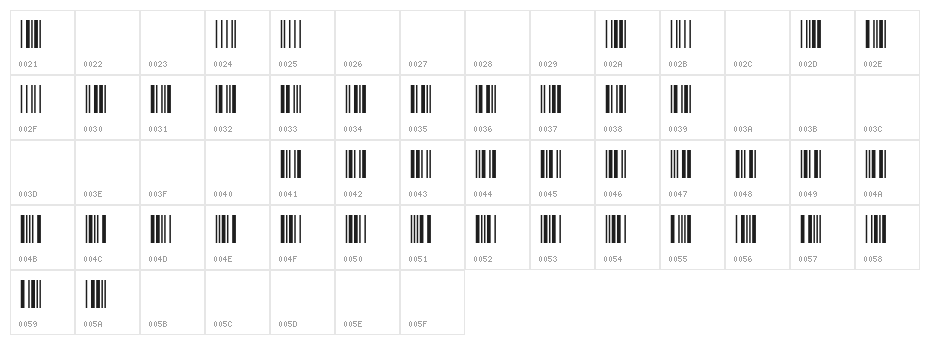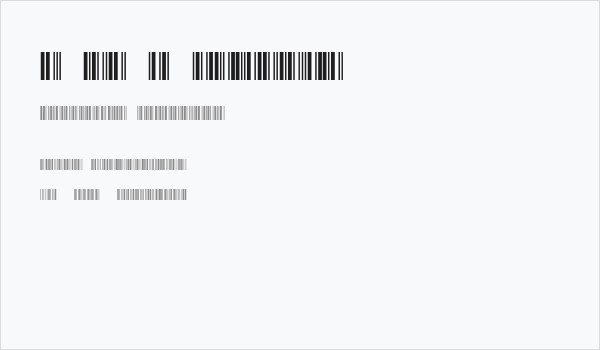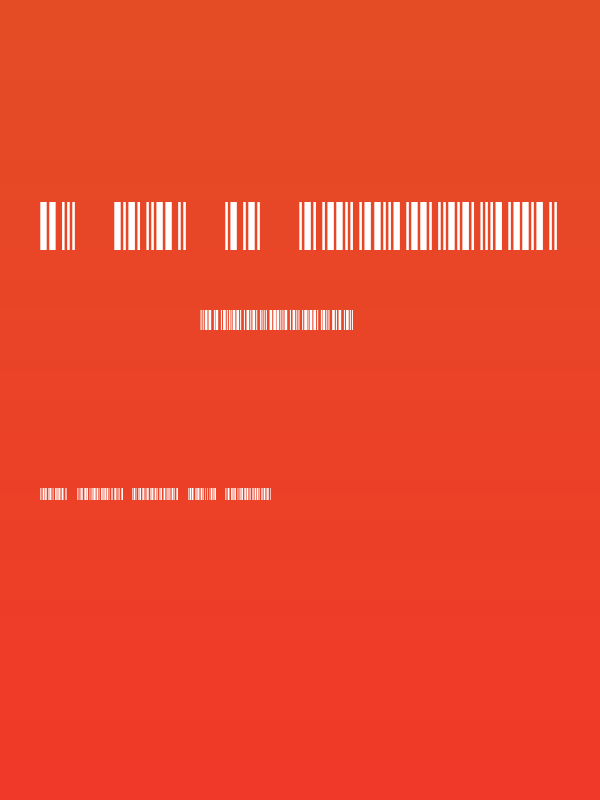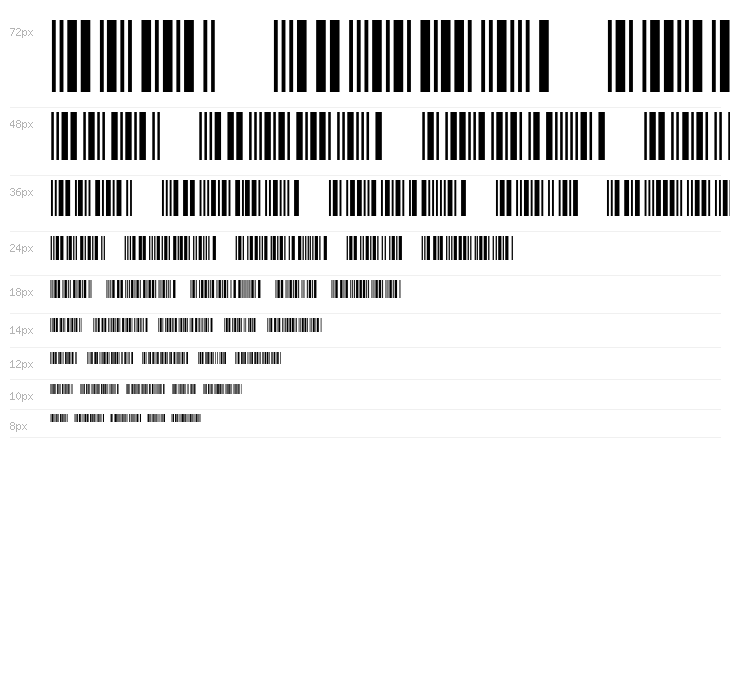
3 of 9 Barcode Font
3 of 9 Barcode Description
A barcode symbology consisting of parallel black bars and white spaces of varying widths, representing alphanumeric characters and a limited set of symbols. The design is highly geometric, with no typographic features such as serifs, curves, or variable stroke contrast.
| Overall Style | Functional, Industrial |
| Use Case | Barcodes, Machine-readable labels |
| Proposed Projects | Product labeling, inventory management, asset tracking, library systems, ID cards. |